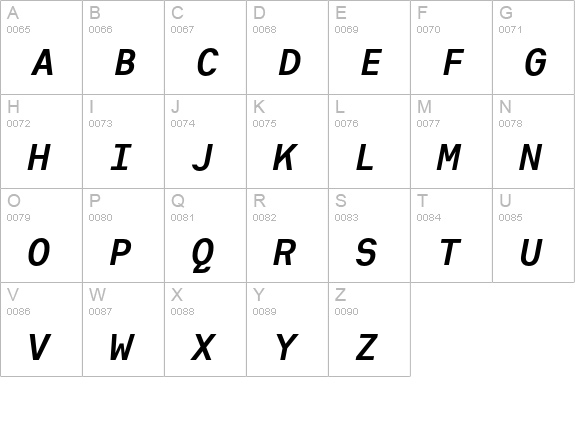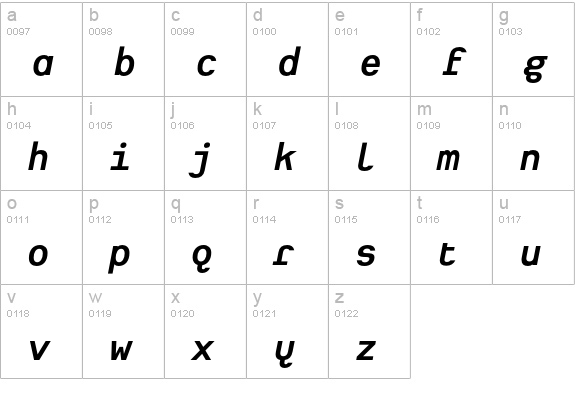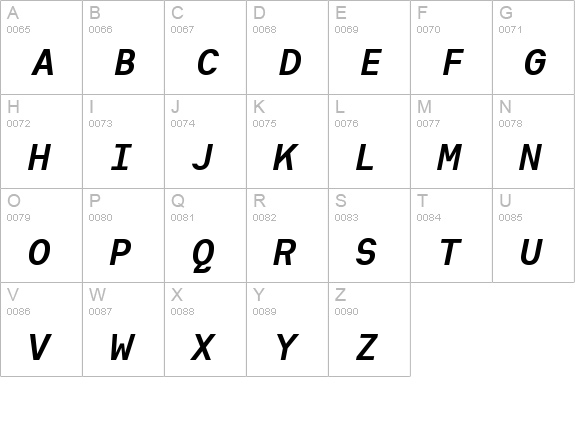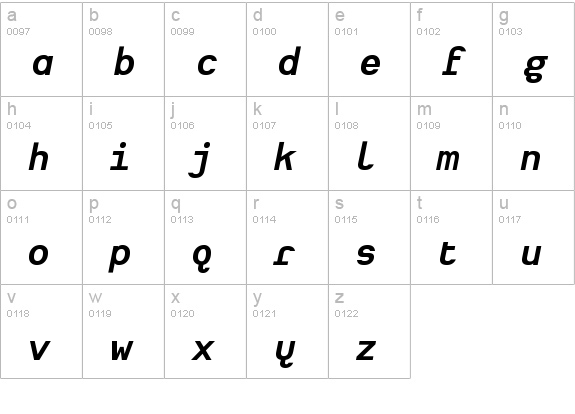
Heimat Mono Bold Italic is a strong, high-contrast, italic variant in the Heimat typeface family \xE2\x80\x94 well suited to headlines, attention-grabbing titles, and strong calls-to-action.
Heimat Mono Bold Italic font is a striking and versatile typeface that exudes modernity and sophistication. Its bold and italicized design adds a touch of elegance to any project, making it perfect for headlines, titles, and branding materials. The clean lines and sharp angles of Heimat Mono Bold Italic create a sleek and professional look that commands attention. What sets Heimat Mono Bold Italic font apart is that it is available for free download at FontsMarket.com. This means you can easily access this high-quality font without any cost, making it a valuable resource for designers, creatives, and anyone looking to elevate their projects with a touch of style. Whether you're working on a website, poster, logo, or any other design project, Heimat Mono Bold Italic font is sure to make a bold statement and leave a lasting impression. Download it now and enhance your creative endeavors with this exceptional typeface.